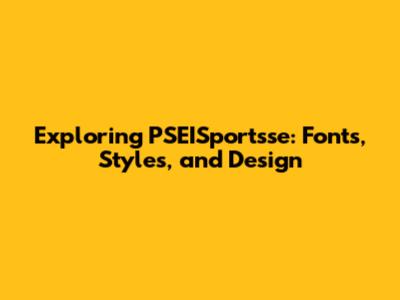
Hey guys! Ever wondered about the unique visual identity of PSEISportsse? Let's dive deep into the world of PSEISportsse fonts, styles, and design elements that make this brand stand out. We'll explore the various fonts used, how they contribute to the overall aesthetic, and why they matter in creating a cohesive and recognizable brand image. This isn't just about picking pretty letters; it's about crafting a powerful visual language that speaks volumes. So, buckle up, because we're about to embark on a font-tastic journey into the heart of PSEISportsse's design world!
The Significance of Typography in Branding
Alright, let's kick things off with a little typography 101. Typography, in simple terms, is the art and technique of arranging type to make written language legible, readable, and appealing when displayed. When it comes to branding, typography is a fundamental element. It's not just about the words; it's about how those words look. The fonts a brand chooses can convey personality, values, and even the tone of voice. Think about it: a playful, bubbly font suggests a different vibe than a sleek, modern one. The right typography helps create a strong first impression and builds brand recognition over time. It's like the visual handshake of a brand! The fonts selected can either attract or repel the target audience, impacting how the brand is perceived and remembered. Therefore, understanding and choosing appropriate fonts is crucial for any brand aiming to build a successful identity. Typography ensures visual consistency across all branding materials, reinforcing the brand's image. Through the strategic use of typefaces, brands can communicate effectively, differentiate themselves from competitors, and ultimately strengthen their connection with customers.
So, why is this so important for PSEISportsse? Well, the font choices directly affect how the brand is presented to the world, from their website and social media to any promotional materials they create. It contributes significantly to the overall user experience and brand loyalty. Understanding the impact of the fonts used will give a better understanding of the brand's values, target audience, and messaging.
Unveiling the PSEISportsse Font Palette
Now, let's get into the nitty-gritty of PSEISportsse fonts. While I don't have access to the exact, proprietary details of PSEISportsse’s font choices, we can look at common practices and potential font families that align with the brand's image. Many sports brands opt for clean, bold, and modern fonts that convey a sense of dynamism, strength, and professionalism. Typically, PSEISportsse likely uses a mix of fonts. One might be used for headings and titles, and another for body text. These two categories have different functional needs. Headings often benefit from a strong and attention-grabbing font, while body text should prioritize readability and ease of comprehension. Additionally, they may incorporate a special font for logos or specific marketing campaigns. The goal is to ensure a unified visual experience. The choice of fonts should also consider the brand's target audience. Sports brands often aim for a broad demographic, so the fonts used should be easily readable by a wide audience. Font characteristics include the weight, style, and spacing, all of which contribute to the overall visual impact. A brand might choose a sans-serif font for a more contemporary look or a serif font for a touch of classic sophistication. Common fonts used in the sports industry include variations of Helvetica, Arial, Futura, and Impact. These are known for their clarity, legibility, and versatility.
Analyzing the specific font choices of PSEISportsse might involve looking at their logos, website, and marketing materials to identify the primary and secondary fonts used. If the brand uses a unique or custom font, it becomes even more vital in establishing its distinct brand identity. Analyzing the kerning (the space between individual characters) and leading (the space between lines of text) will assist in creating a balanced and visually appealing design. The consistency of font usage across all platforms and media helps reinforce brand recognition and create a cohesive visual narrative.
Font Styles and Their Impact on the Brand's Message
Let’s explore how different font styles can shape the brand's message. Font styles, such as bold, italic, and regular, play a crucial role in conveying different aspects of a brand’s personality and the message it conveys. Bold fonts are often used for headings and important phrases to grab the reader's attention and emphasize key information. They project strength, confidence, and authority. Italic fonts, on the other hand, can add a touch of elegance or highlight specific terms for emphasis. Using them sparingly avoids detracting from the overall readability. Regular fonts are the foundation of text, providing a neutral and consistent reading experience. Choosing the appropriate style of fonts can highlight essential details and direct the reader's attention, making the content more engaging and persuasive. The clever use of italics can introduce a sense of sophistication or signify a different tone, while bold fonts will amplify important information. Furthermore, font styles can also suggest a brand's tone of voice. Bold fonts can convey confidence and dynamism, while lighter fonts may convey a more approachable and friendly tone.
Consistency in the use of font styles across all branding materials is key to creating a recognizable and trustworthy brand image. All styles should be used strategically to ensure a seamless and intuitive user experience. The effective use of font styles can transform a brand’s visual narrative, influencing how it's perceived and remembered by its audience. This attention to detail reflects professionalism and strengthens brand credibility. Through thoughtful use of styles, PSEISportsse can reinforce its brand values, establish a distinct visual identity, and achieve a lasting impact on its audience.
Design Principles: How Fonts Work within the Larger Design Framework
Okay, let's talk about the bigger picture. Fonts don't exist in a vacuum; they're integral to the larger design framework. Design principles like hierarchy, contrast, and balance are vital. Hierarchy dictates which elements are most important. A strategic use of different font sizes, weights, and styles helps guide the eye and communicate information clearly. Contrast involves using different fonts and styles to create visual interest and highlight important elements. This can be achieved by pairing a bold headline with a lighter body font. Balance refers to the arrangement of elements within a design to create a sense of harmony. Fonts, colors, images, and other design elements should all work together to create a cohesive and visually pleasing layout. Consider the spacing between words, lines, and paragraphs. Proper spacing enhances readability and helps create a comfortable reading experience. The layout of the website or marketing material greatly impacts how the audience interacts with the information.
PSEISportsse likely uses these principles to ensure that its design is visually appealing, easy to navigate, and effectively communicates its message. The integration of fonts with other design elements, such as images, colors, and layout, contributes to the overall visual impact and effectiveness of the brand's communication. The use of consistent design principles builds brand recognition and reinforces the brand's identity across all platforms.
Font Choices and the Target Audience
Let's get real for a sec – who is PSEISportsse trying to reach? Understanding the target audience is critical in making font choices. Different demographics respond to different visual styles. A font that resonates with a younger audience might not work well with an older demographic. Fonts for a brand that is for kids will be different from the one for adults. Considering the target audience’s preferences and expectations will guide font selections that will connect with them. Researching market trends and competitor designs can provide valuable insights into audience preferences and industry standards. Knowing what kind of personality will appeal to a specific group is part of this analysis. This includes considering the cultural context. Fonts and design elements that are well-received in one culture might not translate effectively in another. All this will influence the overall design decisions.